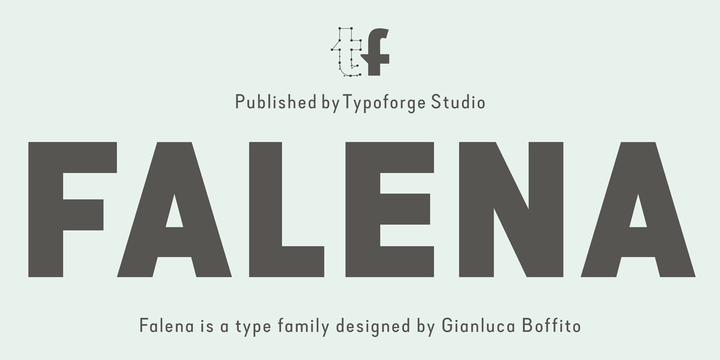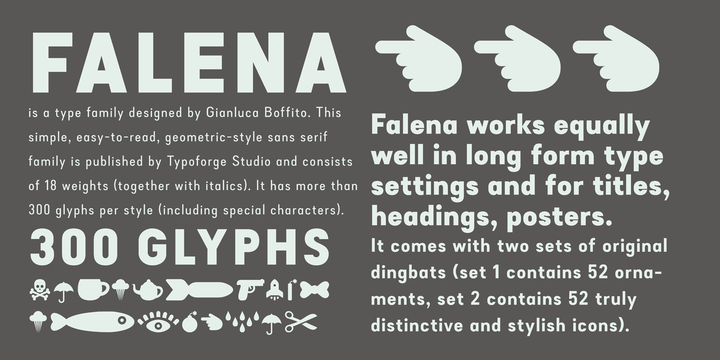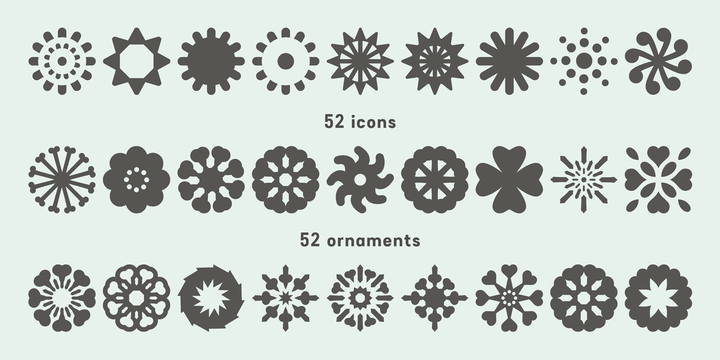
Falena is a type family designed by Gianluca Boffito. This simple, easy-to-read, geometric-style sans serif family is published by Typoforge Studio and consists of 18 weights (together with italics).
It has more than 300 glyphs per style (including special characters). Falena works equally well in long form type settings and for titles, headings, posters. It comes with two sets of original dingbats (set 1 contains 52 ornaments, set 2 contains 52 truly distinctive and stylish icons).